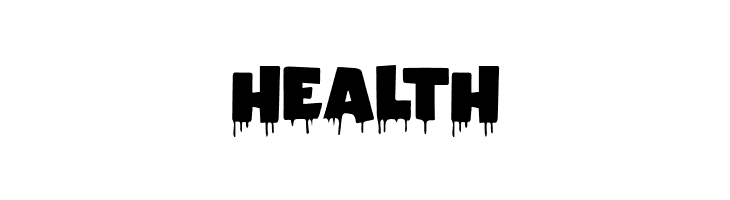
A playful, handwritten font with a casual and friendly vibe.
A playful, hand-drawn outline font with a casual and artistic vibe.
An edgy, dripping font with a rebellious, artistic vibe.
A distressed, grungy font with a rock-and-roll vibe and rough texture.
A bold, textured, hand-drawn style font with a playful and energetic vibe.
A playful, handwritten font with a casual and friendly vibe.
A playful handwritten font with a casual and friendly vibe.
A playful, casual handwritten font with uneven strokes and a friendly vibe.
A playful, informal handwritten font with a casual and friendly vibe.
A playful handwritten font with a casual and friendly vibe.
A playful and informal handwritten font with a casual vibe.
A playful, handwritten font with bold, irregular strokes and a friendly, casual vibe.
A playful, handwritten font with a casual and friendly vibe.
A playful, handwritten font with bold, rounded strokes and a casual vibe.
A playful, handwritten font with irregular strokes and a casual vibe.
A playful, handwritten font with a casual and friendly vibe.
A playful, handwritten font with bold, rounded strokes and a casual vibe.
A playful, handwritten font with bold strokes and a casual vibe.
A playful, casual handwritten font with a relaxed and informal vibe.
A playful, casual handwritten font with uneven strokes and a friendly vibe.
A playful, handwritten font with a casual and friendly vibe.
A bold, playful handwritten font with rounded strokes and a casual vibe.
A playful, handwritten font with a casual and friendly vibe.
A bold, playful handwritten font with a creative and casual vibe.
A playful, handwritten font with rounded, consistent strokes and a casual vibe.
A bold, bubbly font with a playful and whimsical style.